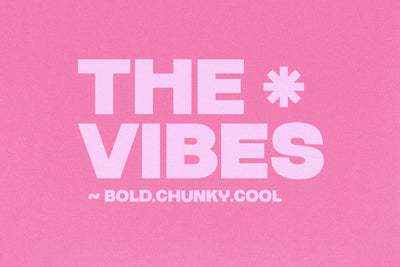
The Vibes - Modern Sans Font
The Vibes is a modern sans font.
This font is perfect for logos, branding, cricut projects, svg files, quotes, teachers and more!